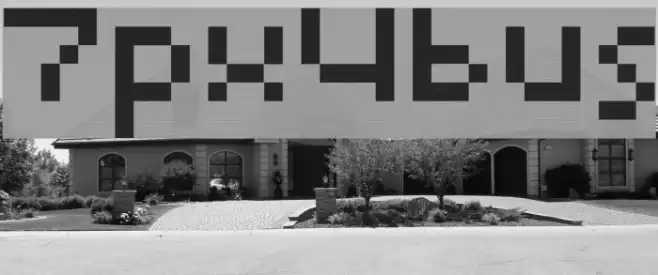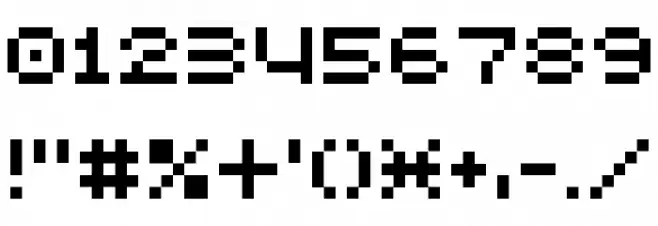
7px4bus Font
7px4bus Description
This font features a pixelated, blocky design reminiscent of early digital displays and retro video games. Each character is constructed with a grid-like precision, giving it a distinctly digital and geometric appearance. The uppercase and lowercase letters maintain a consistent height and width, contributing to a uniform look across the text. The numerals and special characters follow the same pixelated style, ensuring cohesion throughout. This font's simplicity and clarity make it ideal for digital interfaces, retro-themed designs, and projects that require a nostalgic or tech-inspired aesthetic.
A pixelated, blocky font with a retro digital style from Uncategorized fonts.
- Proposed Projects: Ideal for retro video game designs, digital interfaces, tech-themed posters, and nostalgic branding projects.
- Overall Style: Retro, Digital
- Use Case: Headlines, Logos, Digital displays